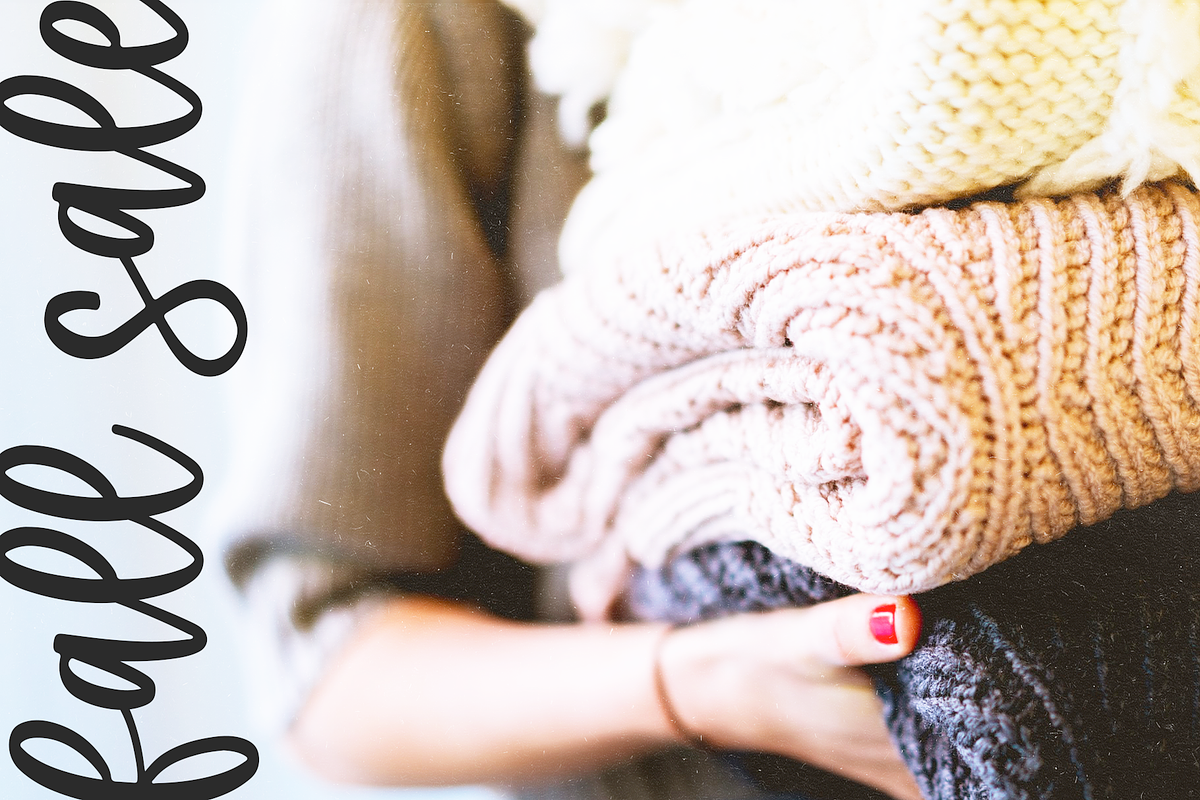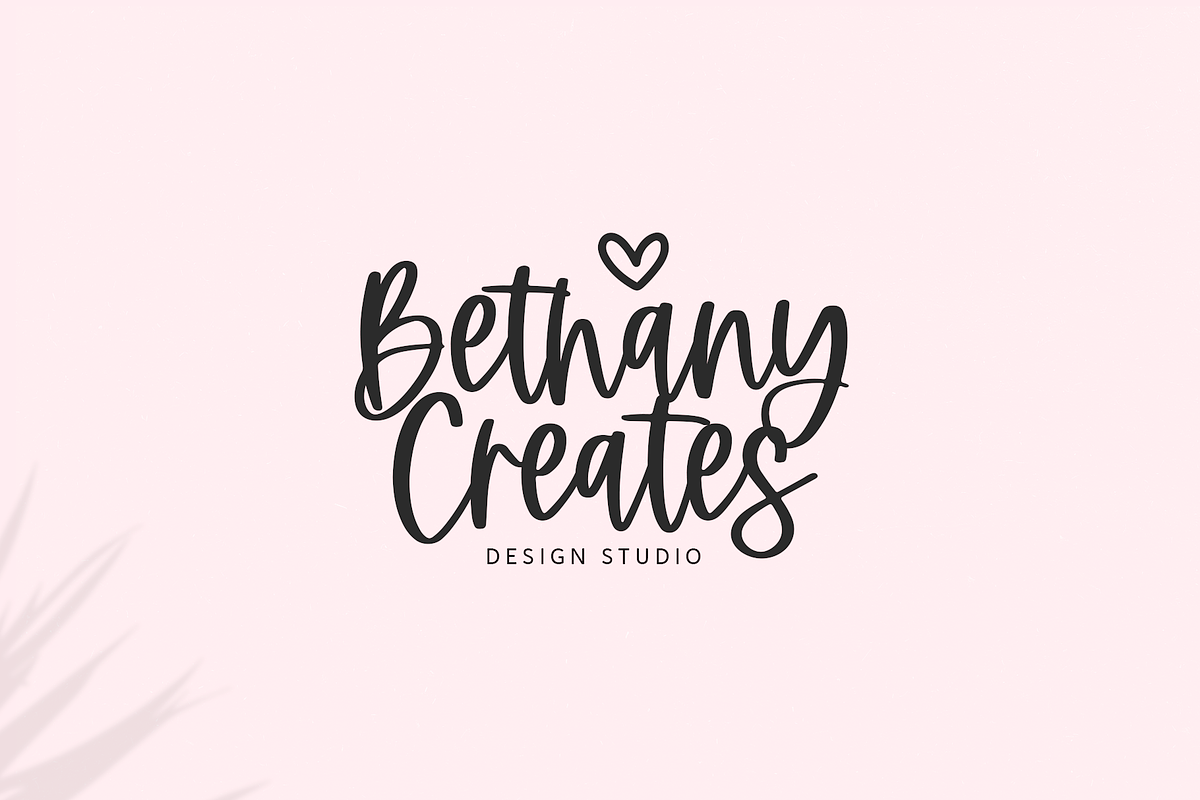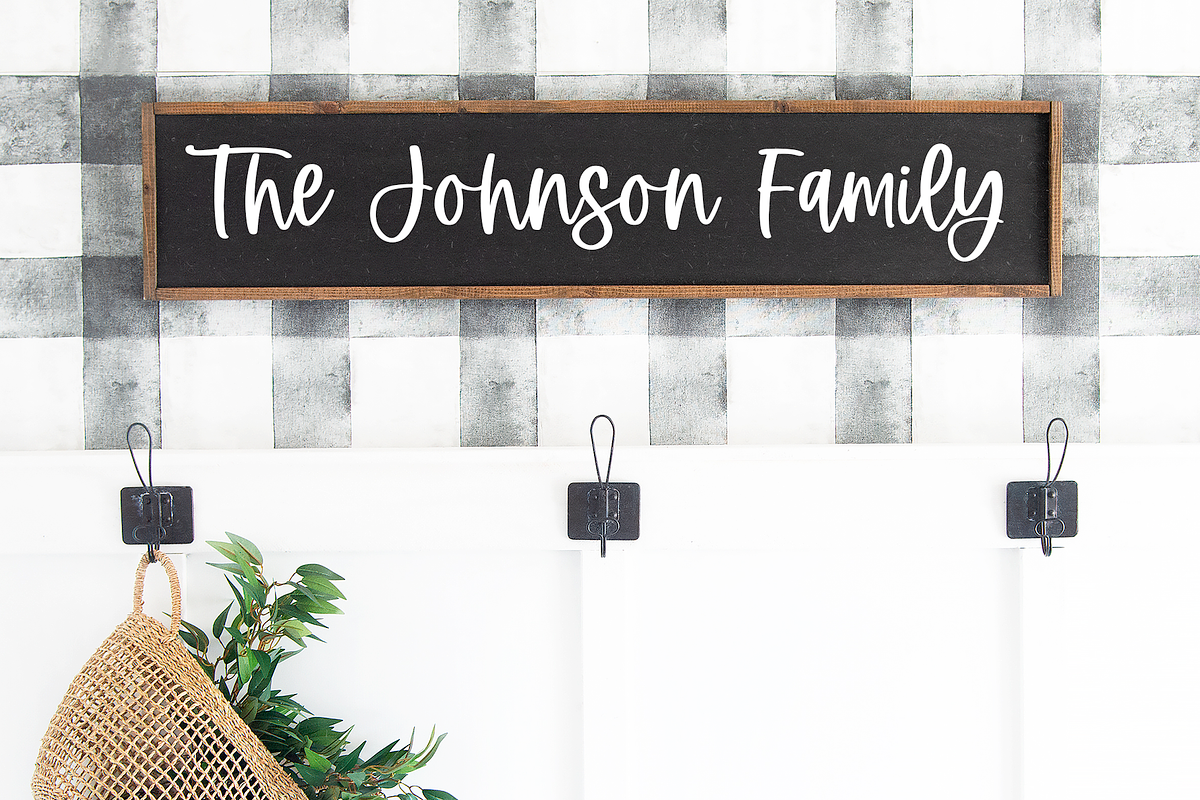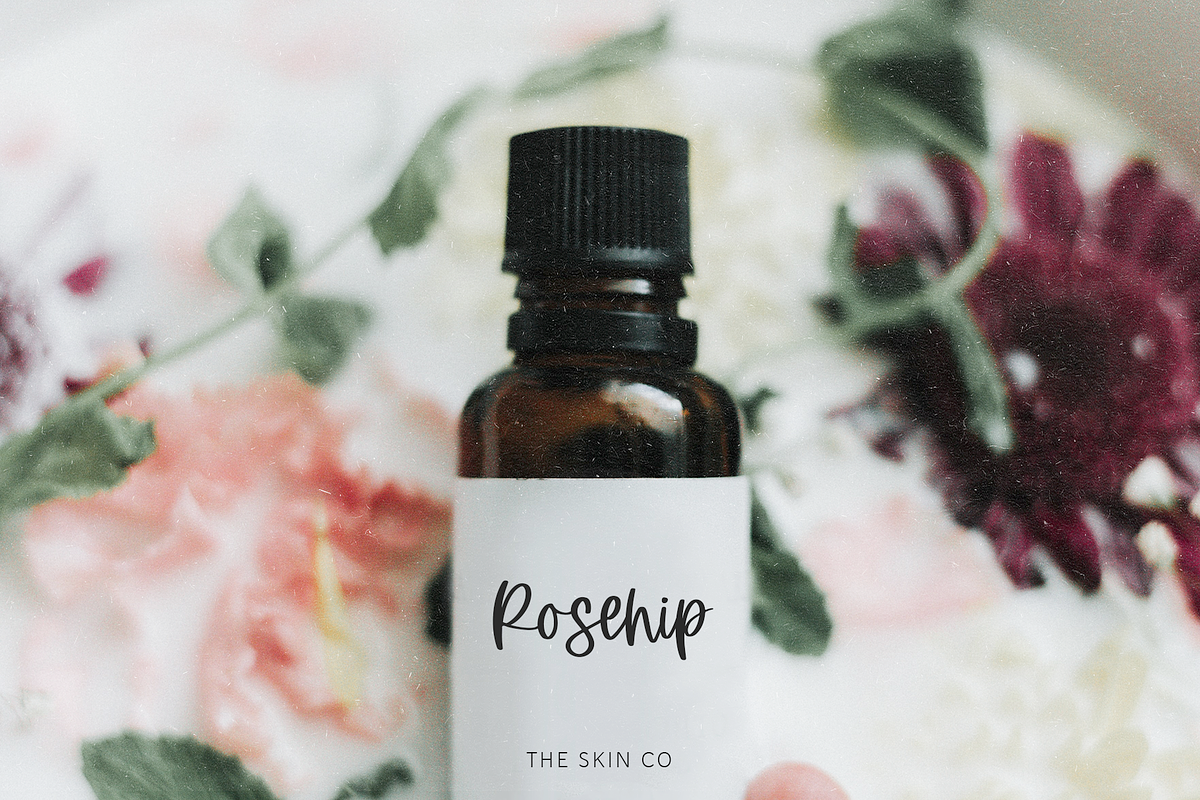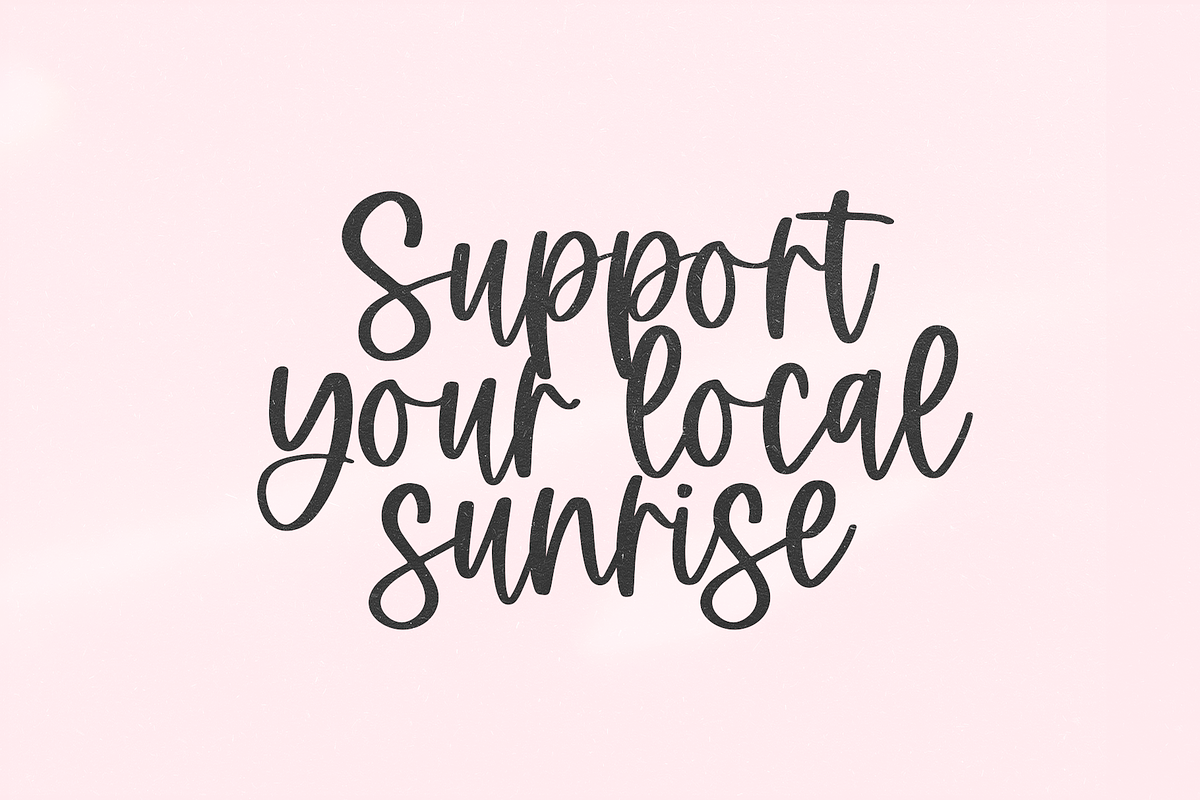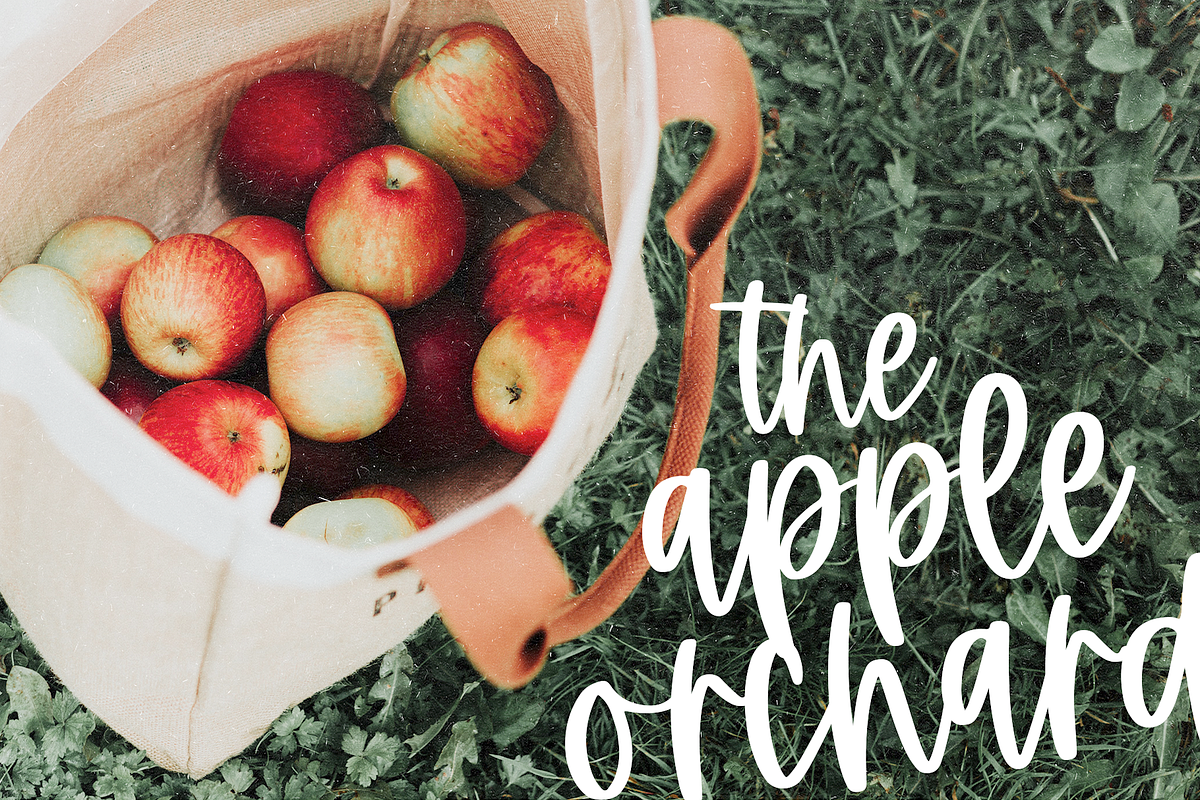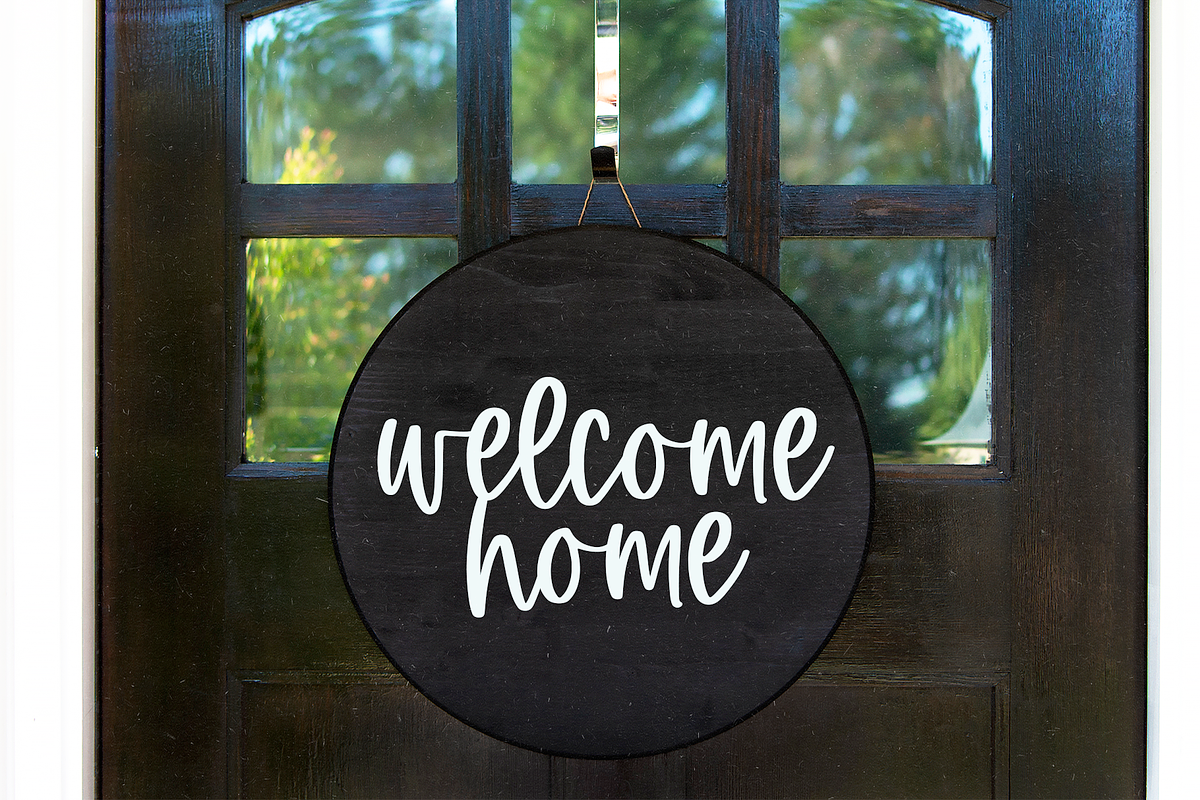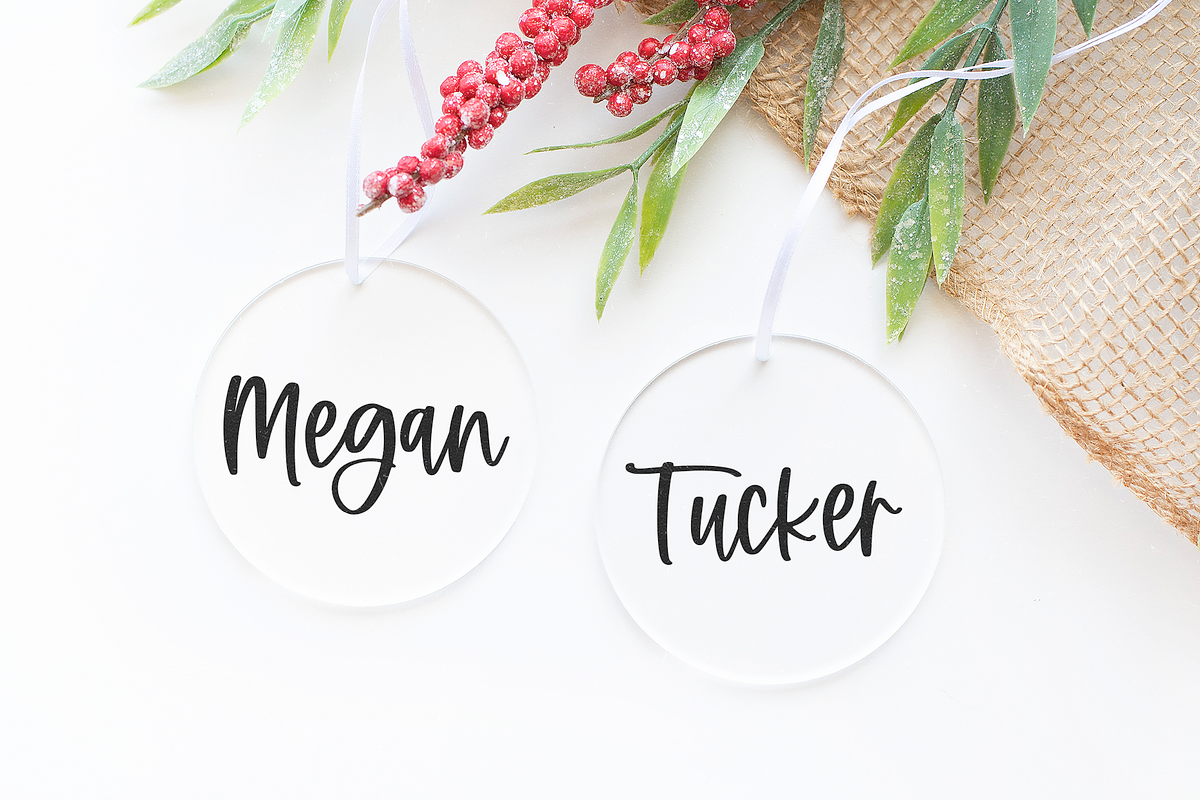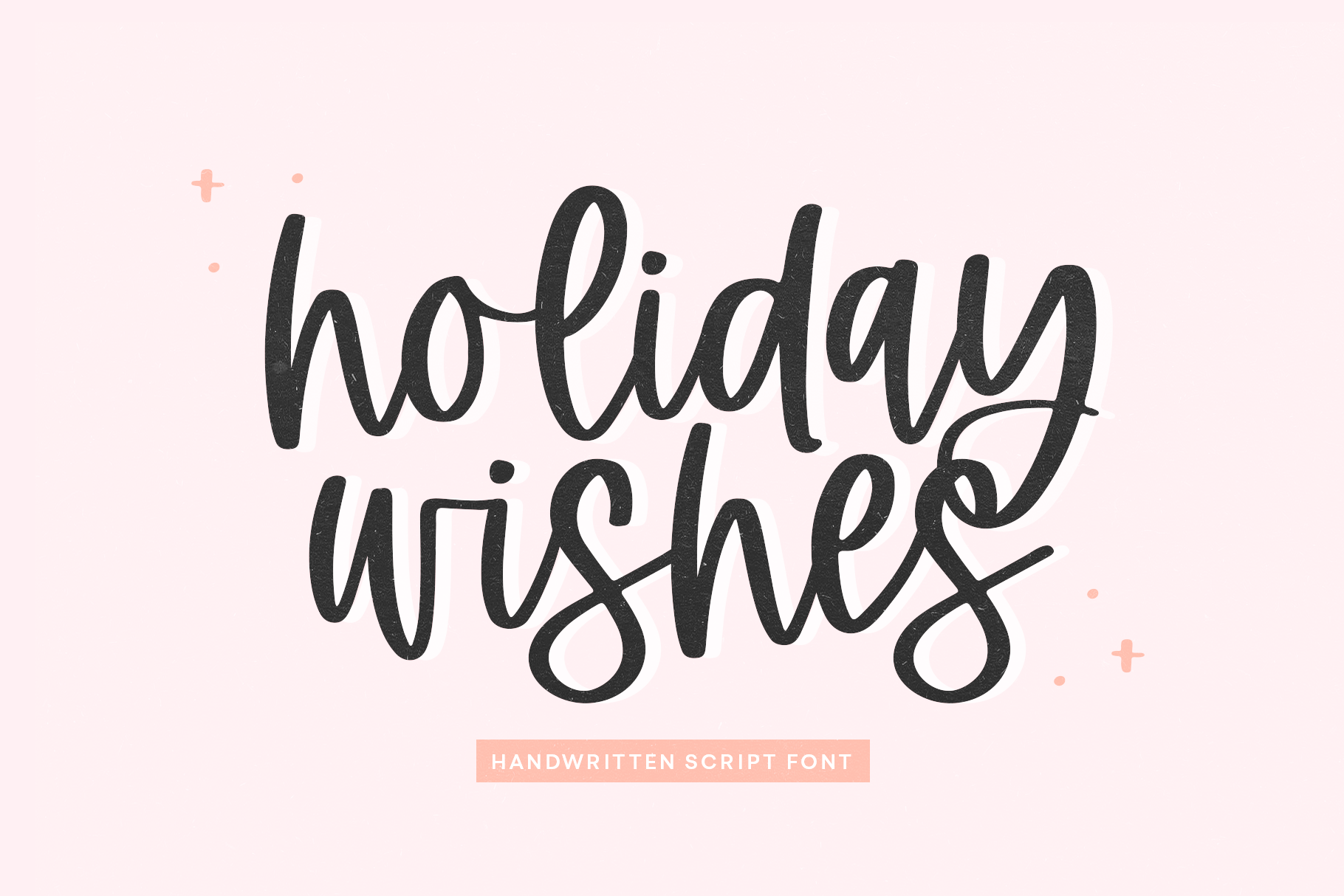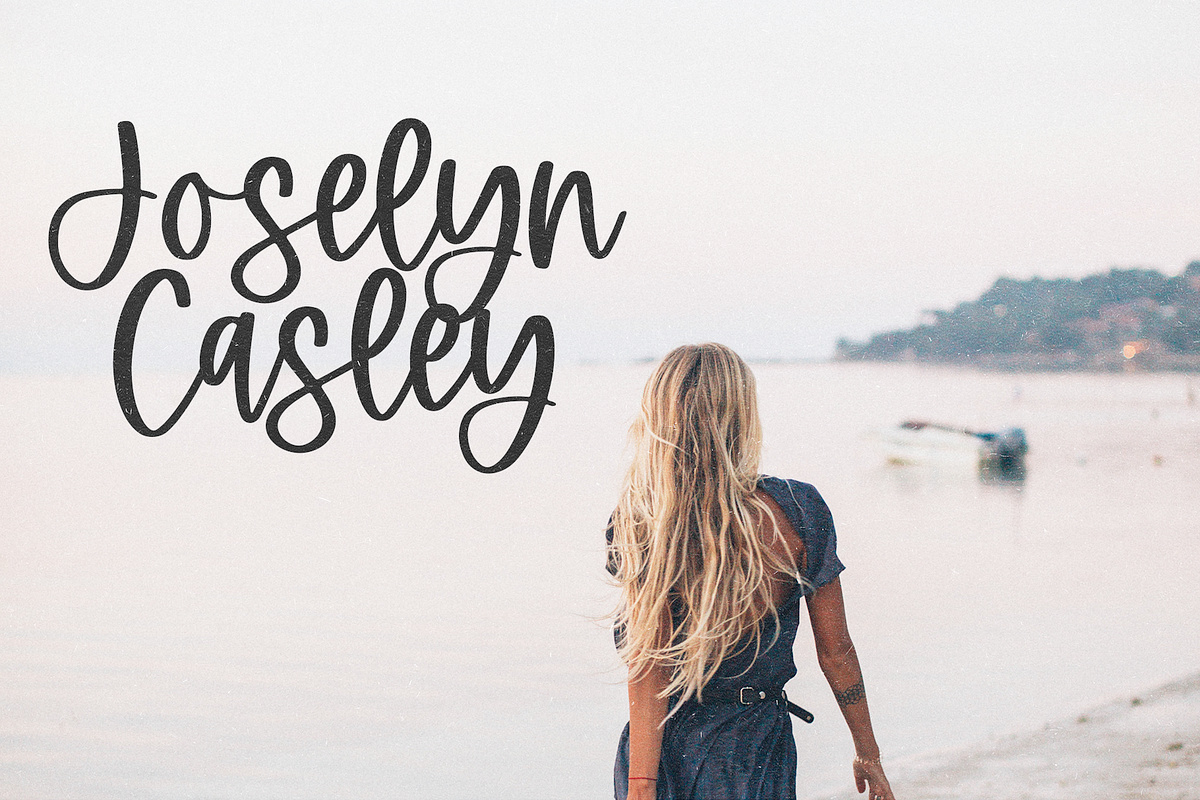
Holiday Wishes | Modern Script Font
Holiday Wishes is a modern script font.
This font is perfect for all of your craft projects, wedding decor, farmhouse designs, svg designs, logos, branding and more!